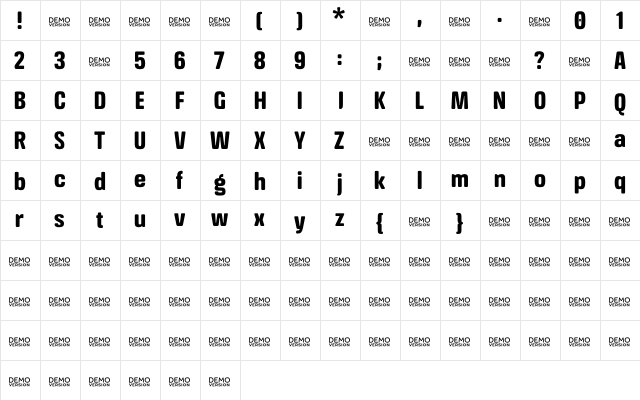
Crossfit Demo Bold
| Designer | Anita J߲geleit |
Design Context for Crossfit Demo Typeface
Crossfit Demo offers clean, dependable letterforms without strong stylistic allegiance, making it a practical choice for designers who need flexibility. The heavy weight commands attention and anchors typographic hierarchies.